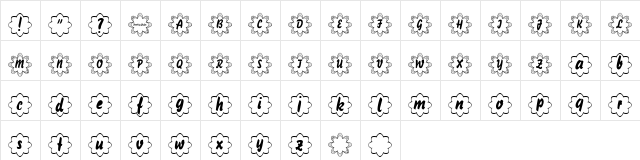
jules dingy Regular
Design Context for jules dingy Typeface
jules dingy is a composed and adaptable typeface that performs quietly and consistently across a wide range of design contexts.